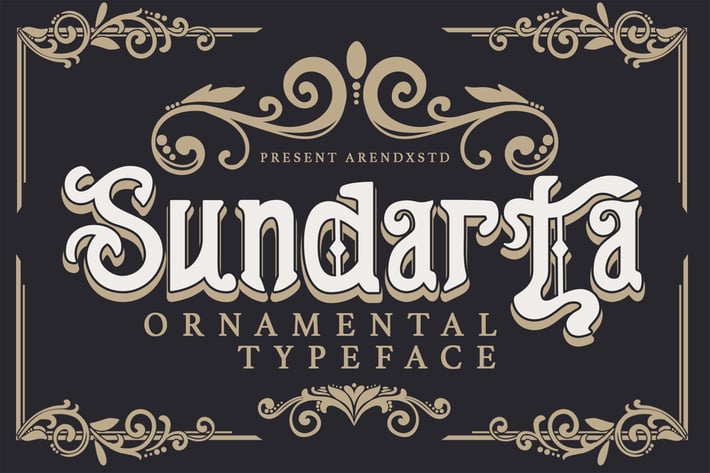
Sundarta | Vintage Typeface
Introduce You Sundarta
Sundarta is a type of Vintage Font that is very different in character and very suitable for the display needs of each of your designs I'm sure you will like it
Sundarta came with opentype features such stylistic alternates, stylistic sets & ligatures good for logotype, poster, badge, book cover, tshirt design, packaging and any more.